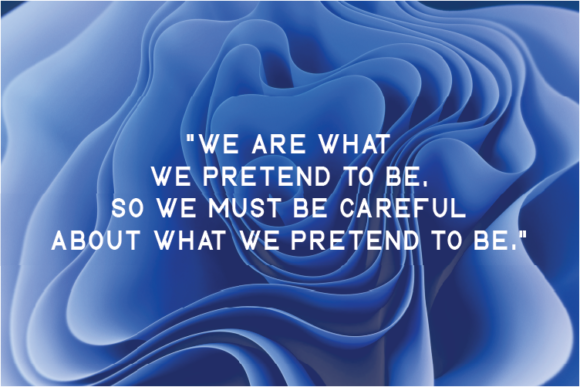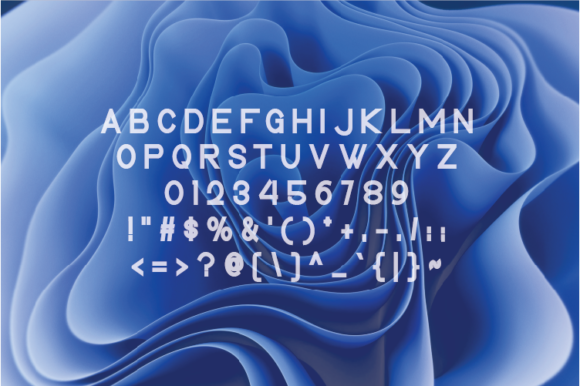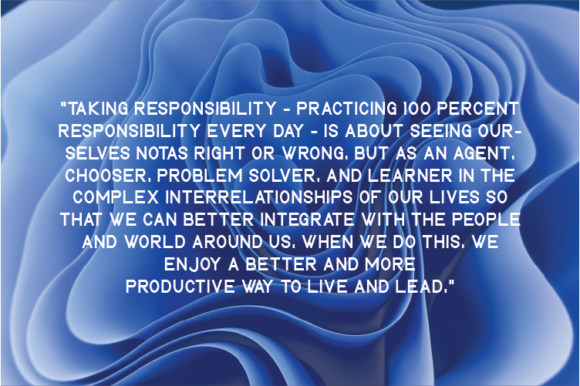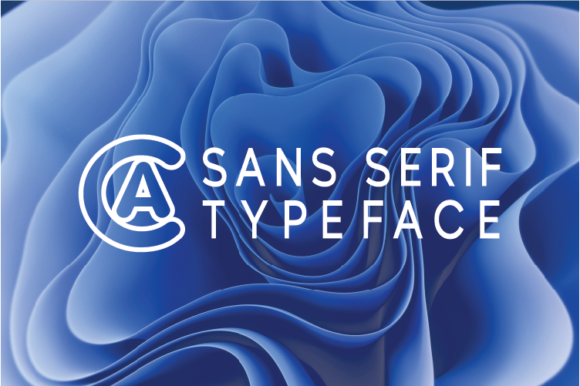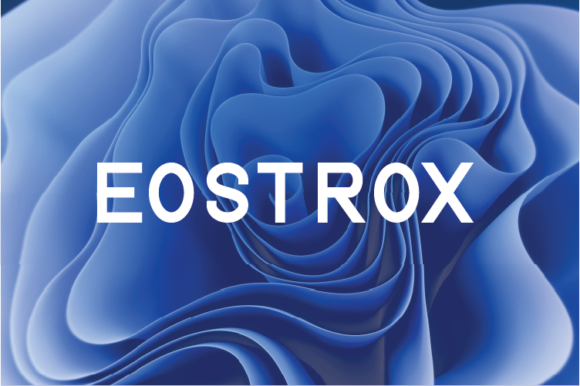
Eostrox Font: Elevate Your Designs with Modern Elegance
In the world of typography, a font can make or break a design. For designers and crafters seeking a modern, classy sans serif typeface, Eostrox Font is an exceptional choice. This versatile font is suitable for a wide range of applications, from logotypes and headlines to corporate identities, brand identities, and various creative projects.
What is Eostrox Font?
Eostrox Font is a contemporary sans serif typeface designed to bring a touch of sophistication and elegance to any design. Its clean lines, precise curves, and balanced proportions make it perfect for creating visually appealing text. Whether you’re working on a logotype, headline, or body text, Eostrox Font is engineered to deliver clarity and style.
Key Features of Eostrox Font
- Modern Design: Eostrox Font boasts a modern aesthetic that fits well with current design trends. Its sleek and streamlined appearance makes it ideal for projects that require a fresh and contemporary look.
- Versatility: This font is incredibly versatile, suitable for a variety of design projects including corporate identity, brand identity, apparel, posters, music, movies, games, magazines, books, comics, cartoons, YouTube, Instagram, websites, and more.
- Legibility: Eostrox Font is designed with legibility in mind. Its clear and readable characters ensure that your message is conveyed effectively, whether used for headlines or body text.
- Customization: The font comes with a range of weights and styles, allowing for flexible use across different design contexts. This versatility makes it easy to create a cohesive visual identity for your brand or project.
Applications of Eostrox Font
Eostrox Font’s adaptability makes it a valuable asset for numerous design applications:
- Logotype and Branding: Create a lasting impression with a logotype that exudes professionalism and style. Eostrox Font’s unique character set makes it perfect for crafting memorable brand identities.
- Headlines and Titles: Use Eostrox Font to create eye-catching headlines and titles that capture attention. Its modern look ensures that your content stands out.
- Corporate and Brand Identity: Enhance your company’s visual identity with a font that communicates professionalism and sophistication. Eostrox Font is suitable for business cards, letterheads, and other corporate materials.
- Apparel and Merchandise: Design stylish apparel and merchandise with Eostrox Font. Its trendy appearance makes it a great choice for t-shirts, hoodies, mugs, and more.
- Digital Content: From YouTube videos and Instagram posts to website headers and blog articles, Eostrox Font can elevate your digital content with its modern and clean aesthetic.
Why Choose Eostrox Font?
Choosing Eostrox Font for your design projects offers several advantages:
- Unique Style: Stand out from the crowd with a font that offers a distinctive and stylish appearance.
- High Readability: Ensure your message is easily readable across various devices and platforms.
- Flexibility: With multiple weights and styles, Eostrox Font can be adapted to suit any design requirement.
Eostrox Font is a powerful tool for designers and crafters looking to infuse their projects with a modern, classy aesthetic. Its versatility, legibility, and unique style make it an excellent choice for a wide range of applications. Whether you’re creating a logotype, headline, or digital content, Eostrox Font can help you achieve your design goals with elegance and sophistication.